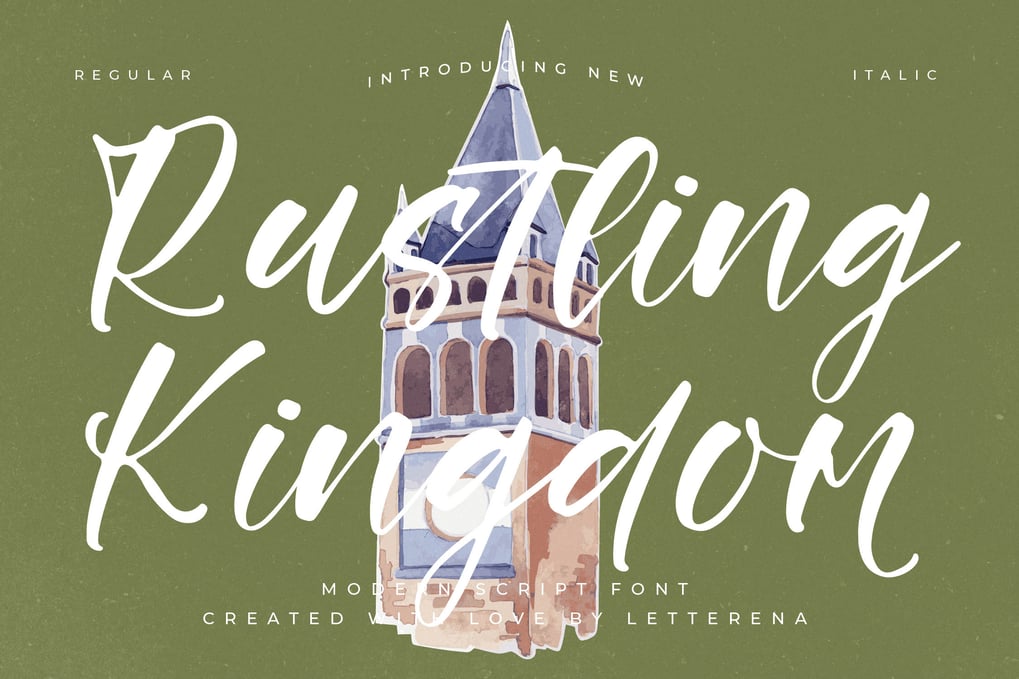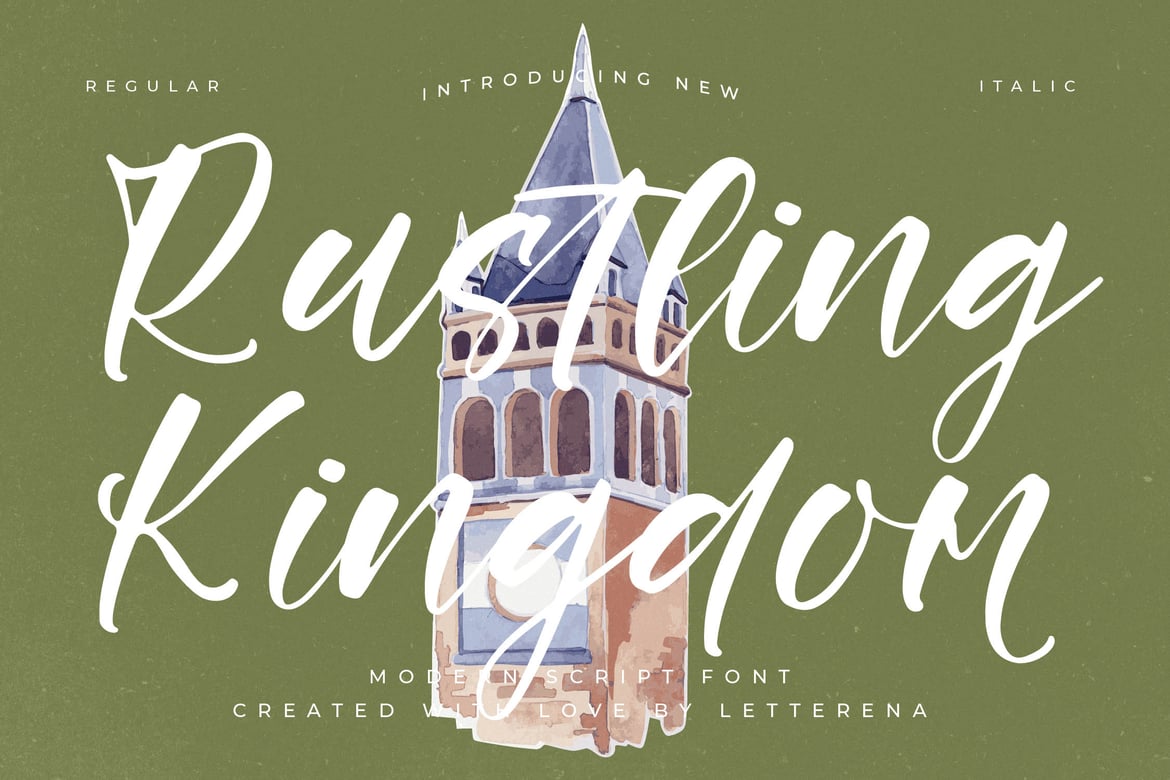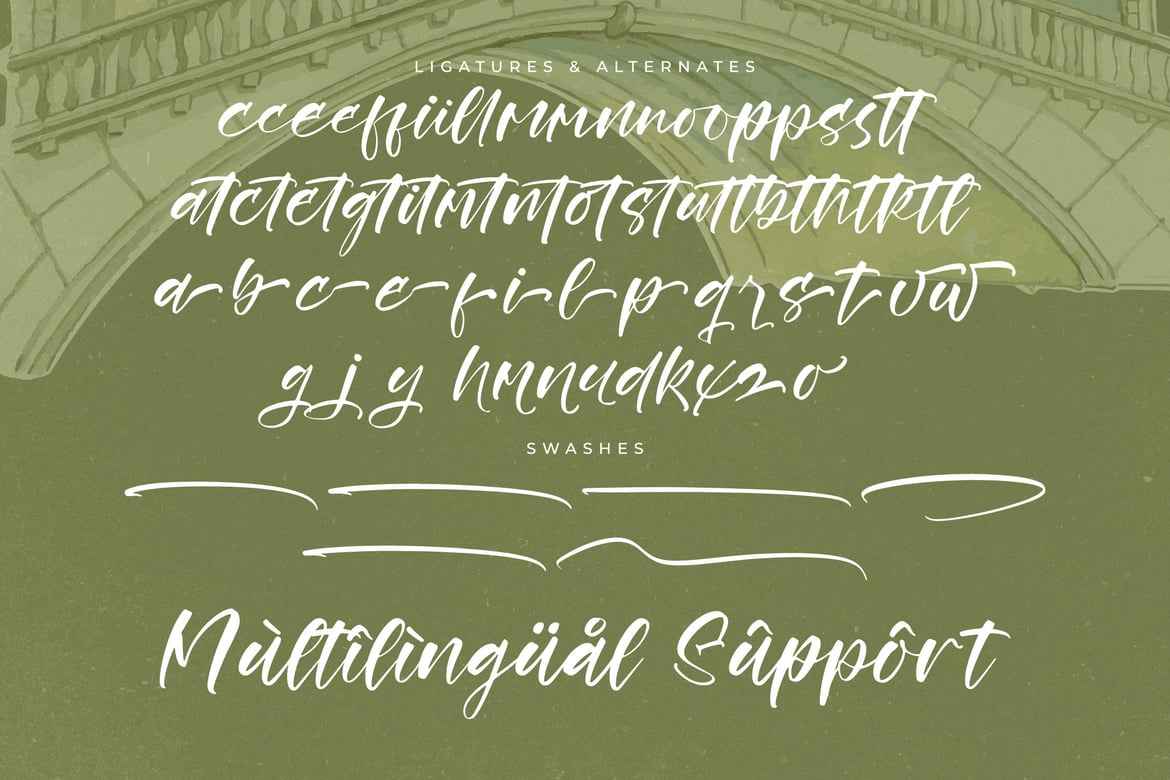
Rustling Kingdom Modern Script Font
* Hi ladies & gentlemen, this is one of our fonts suitable to complement your digital and printed creative products. This font is perfect for posters, social media posts, branding, personal projects, etc.